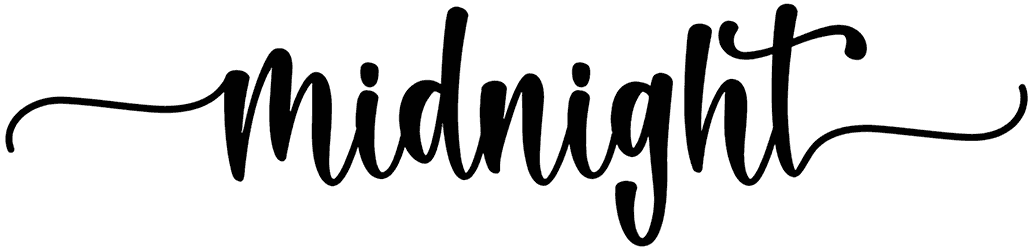
Midnight Font
With a shapely and polished face, beautify your context, and make a whimsical design. As a handwritten font, Midnight has an appealing and natural style that can be harmonized with varied subjects. With an almost full cover of characters, this cursive font can be a nice choice for many items, namely posters, books, magazines, and the like.